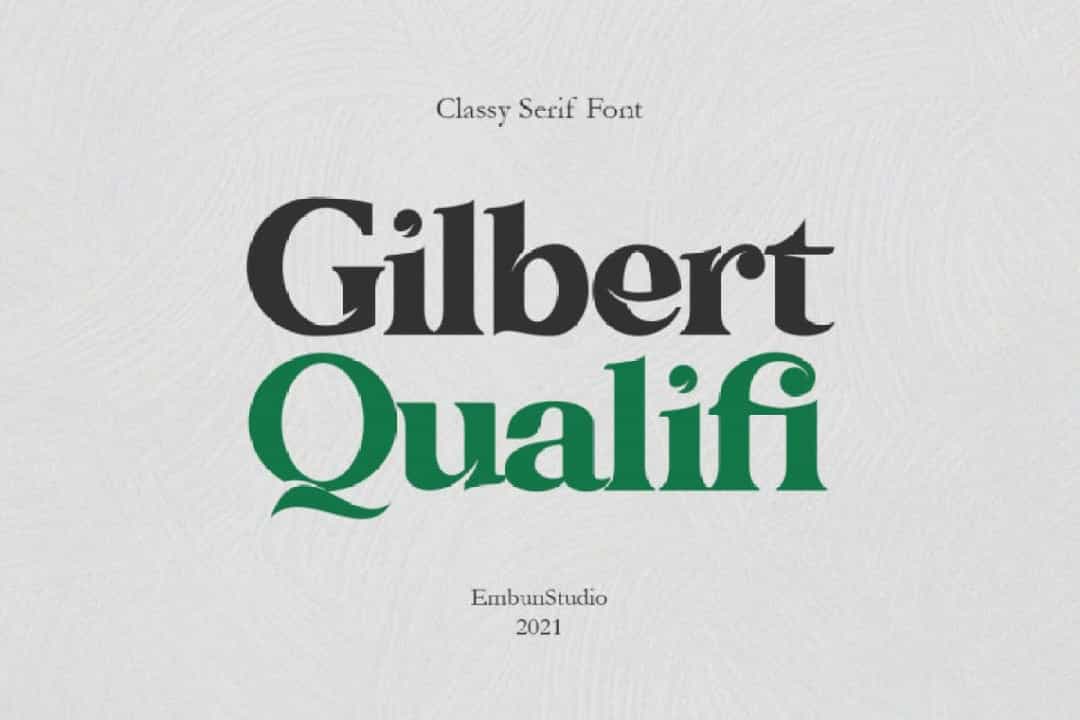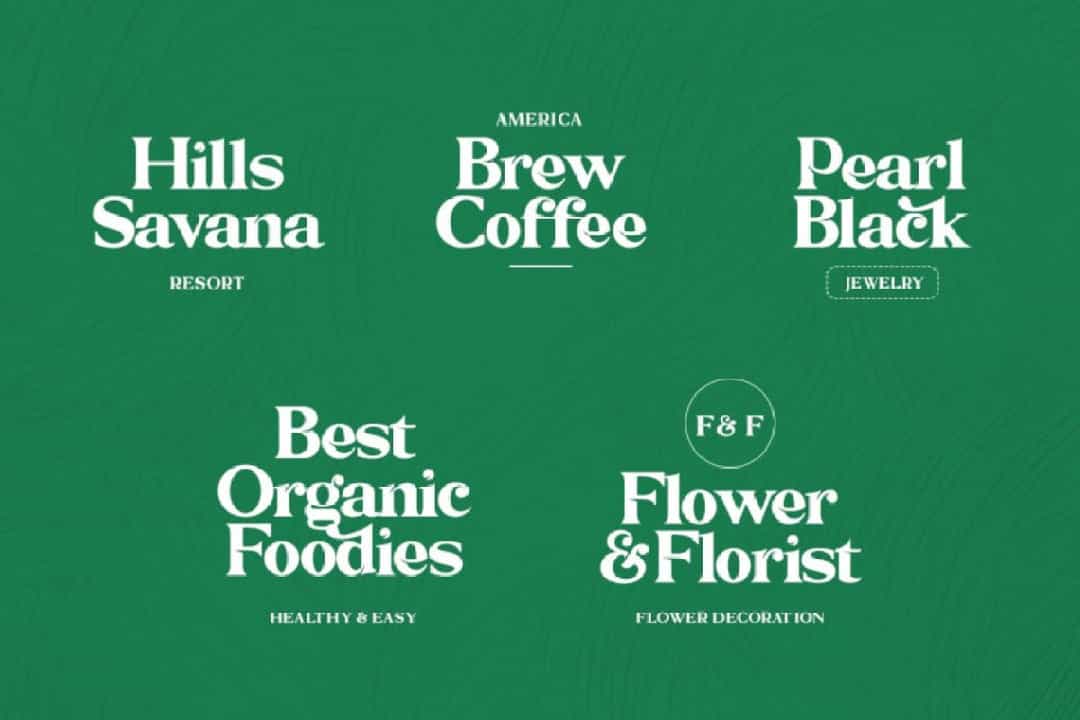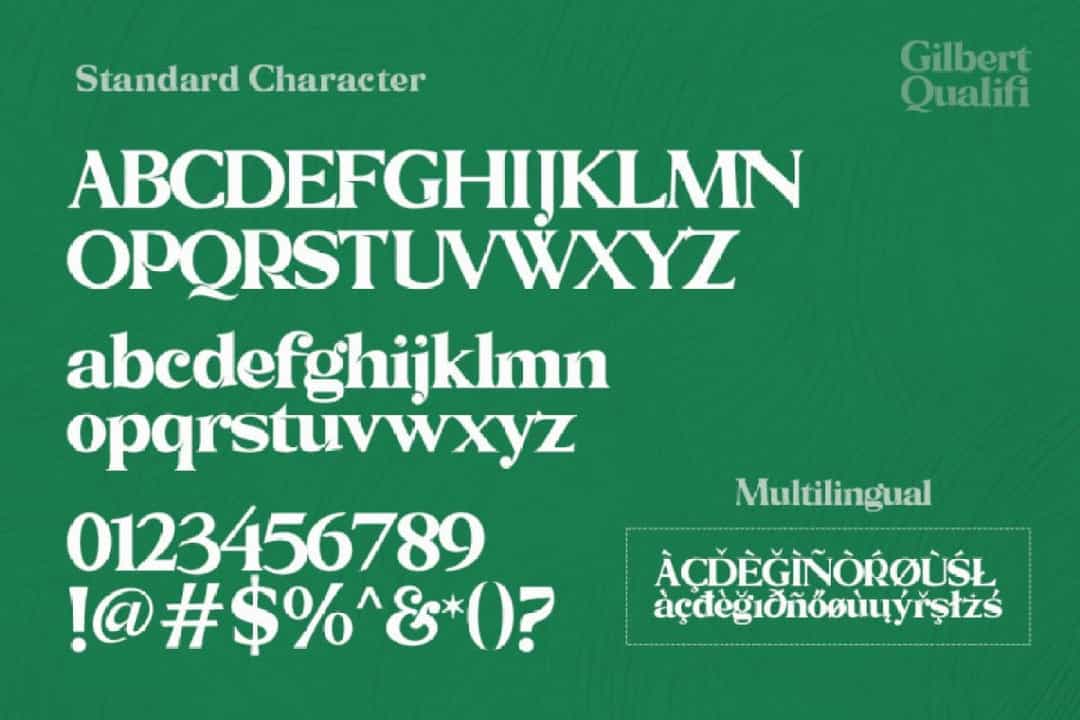
Gilbert Qualifi Serif Font is part of our passion for fonts, the result of extensive work over an extended period. For this reason, we chose it to be our primary font when working with clients needing updated logo designs or creating social media content.